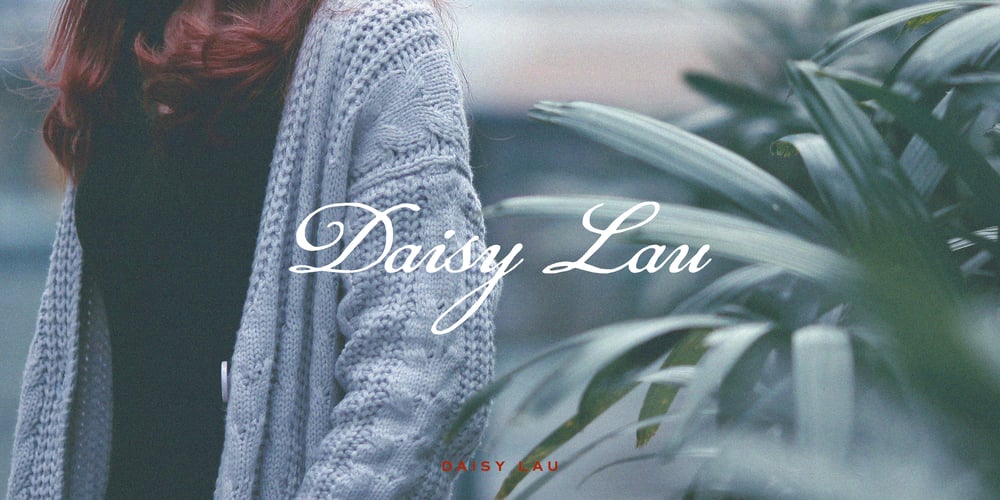
Daisy Lau
Daisy  Lau font
Daisy Lau Font Family was designed by Ryoichi Tsunekawa and published by Dharma Type. Daisy Lau contains 1 styles and family package options. Based on some script in the 19th century. Inky texture gives realistic handwriting appearance. Smooth writing feeling creates antiqued and nostalgic atmosphere. Rising Star on March 2007. There are two other script designed by in the same concept. -Daisy Lau -Lily Wang -Pansy Bo